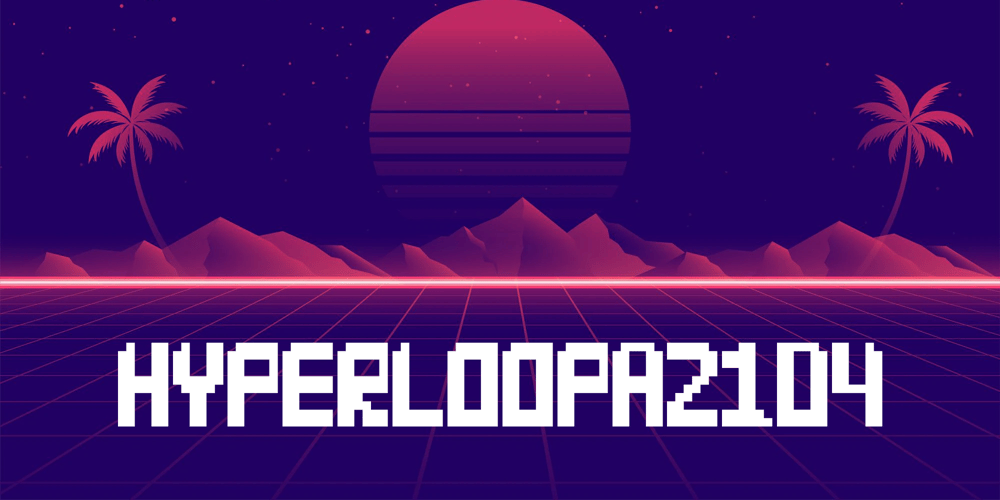
Hyperloopa2104 Font Family was designed by Andrew Tomson and published by Andrew Tomson. Hyperloopa2104 contains 2 styles and family package options. Hello, friends!I recently bought myself an old game console, the SEGA Mega Drive 2. For a long time I couldn’t understand why, when I was a kid, it seemed incredible to play it. Nowadays there are a lot of games with stunning graphics and realism, but still there is something warm and light in old games. Maybe it’s just a memory of a carefree childhood. After playing it, I decided to create this font so that everyone could do something in the style of old games that an army of designers and programmers hadn’t worked on yet.Good luck and love to you!